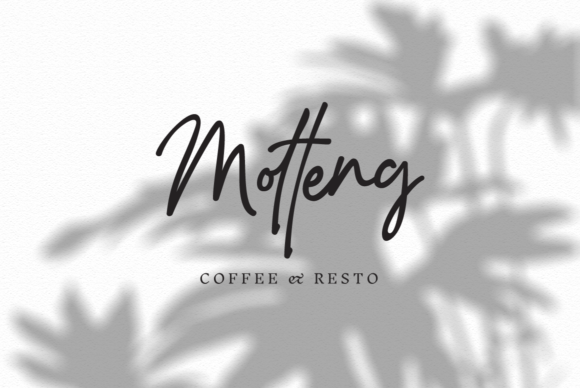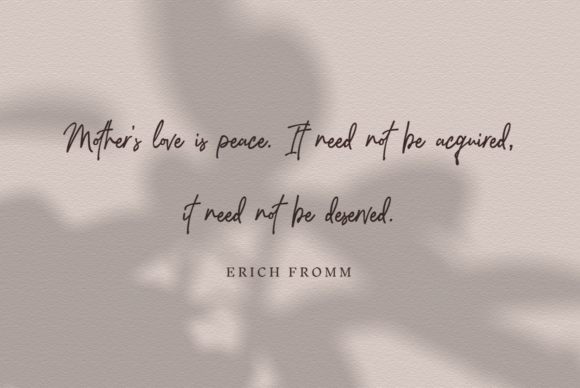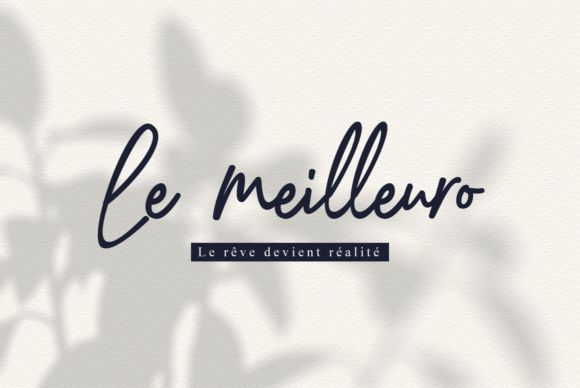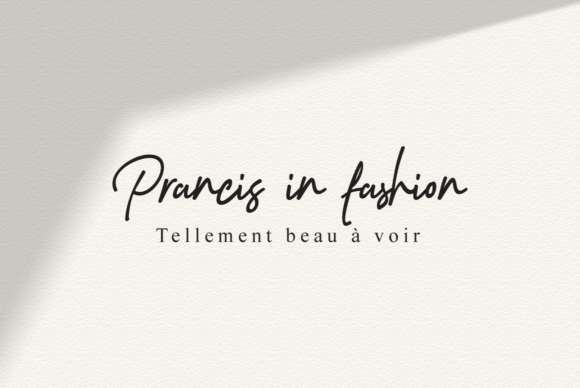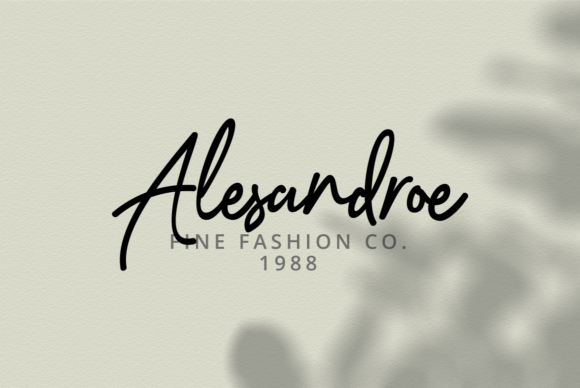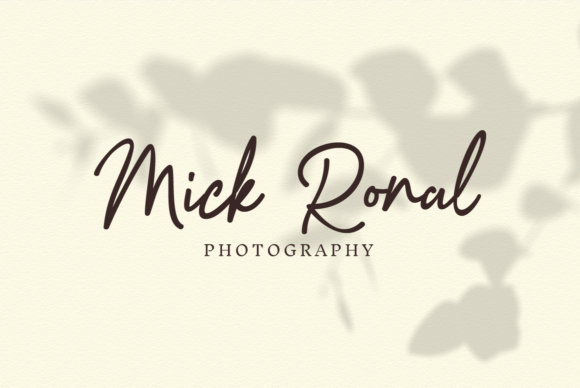
Introducing Geoffani Script Font: Elevate Your Designs with Elegance and Sophistication
In the world of typography, a font can make or break a design. For designers and crafters looking to add a touch of elegance and sophistication to their projects, Geoffani Script Font is an excellent choice. This stylish and authentic script font is perfect for a variety of design ideas that require a trendy touch. In this article, we’ll dive into the features and benefits of Geoffani Script Font, and explore how it can elevate your designs.
What is Geoffani Script Font?
Geoffani Script Font is a beautifully crafted script font that exudes elegance and sophistication. Its unique and flowing design makes it perfect for adding a touch of luxury to any design project. Whether you’re working on a branding project, a wedding invitation, or a packaging design, Geoffani Script Font is sure to impress.
Key Features of Geoffani Script Font
- Stylish and Authentic Design: Geoffani Script Font boasts a stylish and authentic design that is sure to make your designs stand out.
- PUA Encoded: This font is PUA (Private Use Area) encoded, which means you can access all glyphs and swashes with ease. This feature makes it easy to use and customize the font to suit your design needs.
- Trendy Touch: Geoffani Script Font adds a trendy touch to any design project, making it perfect for designers and crafters who want to stay ahead of the curve.
- Versatile: This font is versatile and can be used on a variety of design projects, including branding, packaging, wedding invitations, and more.
Benefits of Using Geoffani Script Font
So, why should you choose Geoffani Script Font for your design projects? Here are just a few benefits of using this amazing font:
- Elegance and Sophistication: Geoffani Script Font adds a touch of elegance and sophistication to any design project, making it perfect for designers and crafters who want to create high-end designs.
- Easy to Use: This font is easy to use and customize, thanks to its PUA encoding. This means you can access all glyphs and swashes with ease, making it simple to create unique and creative designs.
- Time-Saving: With Geoffani Script Font, you can save time and effort in your design projects. Its versatile design and ease of use make it a great choice for designers and crafters who need to work efficiently.
- Unique Designs: This font allows you to create unique and creative designs that will set you apart from the competition. Its stylish and authentic design makes it perfect for designers and crafters who want to create designs that stand out.
In conclusion, Geoffani Script Font is a stylish and authentic script font that is perfect for designers and crafters looking to add a touch of elegance and sophistication to their designs. Its PUA encoding makes it easy to use and customize, while its versatile design makes it suitable for a variety of design projects. Whether you’re working on a branding project, a wedding invitation, or a packaging design, Geoffani Script Font is sure to impress. So why wait? Download Geoffani Script Font today and elevate your designs with elegance and sophistication.